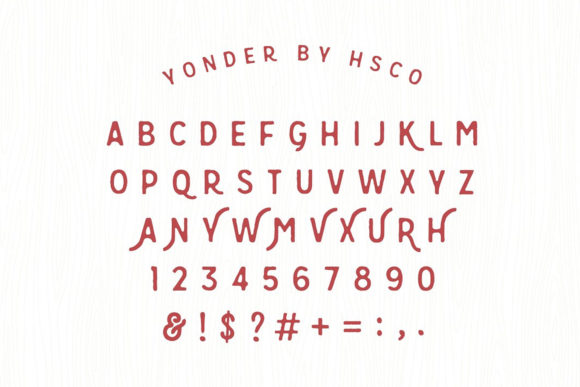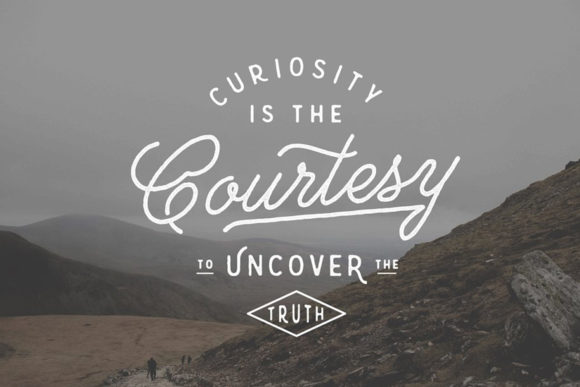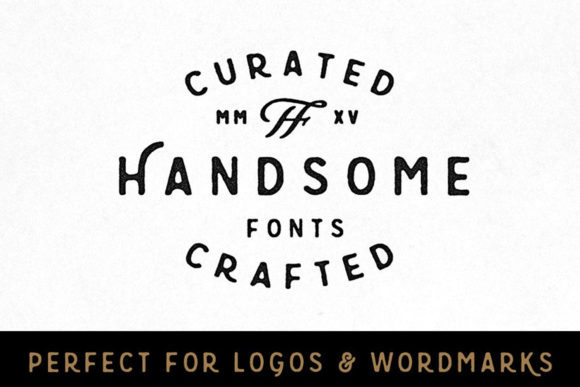
Yonder Font
About Yonder Font
Yonder is a great handwritten font. Its casual charm makes it appear wonderfully down-to-earth, readable and, ultimately, incredibly versatile. Yonder will look outstanding in any context, whether it’s being used on busy backgrounds or as a standalone headline!